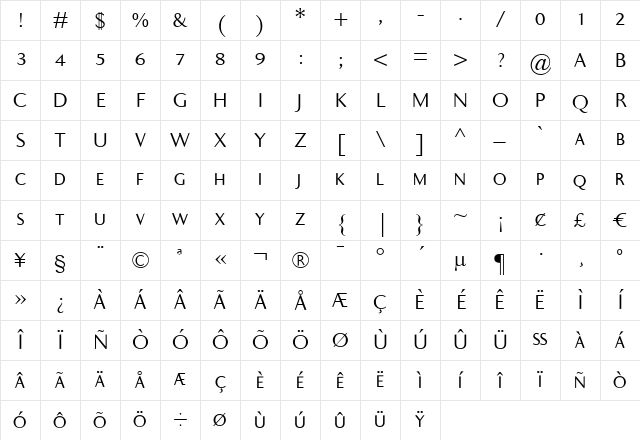
Ela Sans SemiLight Caps Regular
Foundry: Gert Wiescher, Wiescher-Design, Munich, Germany, www.wiescher-design.de
Ela Sans SemiLight Caps Family
Ela Sans SemiLight Caps Regular
Design Context for Ela Sans SemiLight Caps
Ela Sans SemiLight Caps is a composed and adaptable typeface that performs quietly and consistently across a wide range of design contexts. Its slender proportions lend an understated elegance to any composition.
Who designed the Ela Sans SemiLight Caps Regular font?